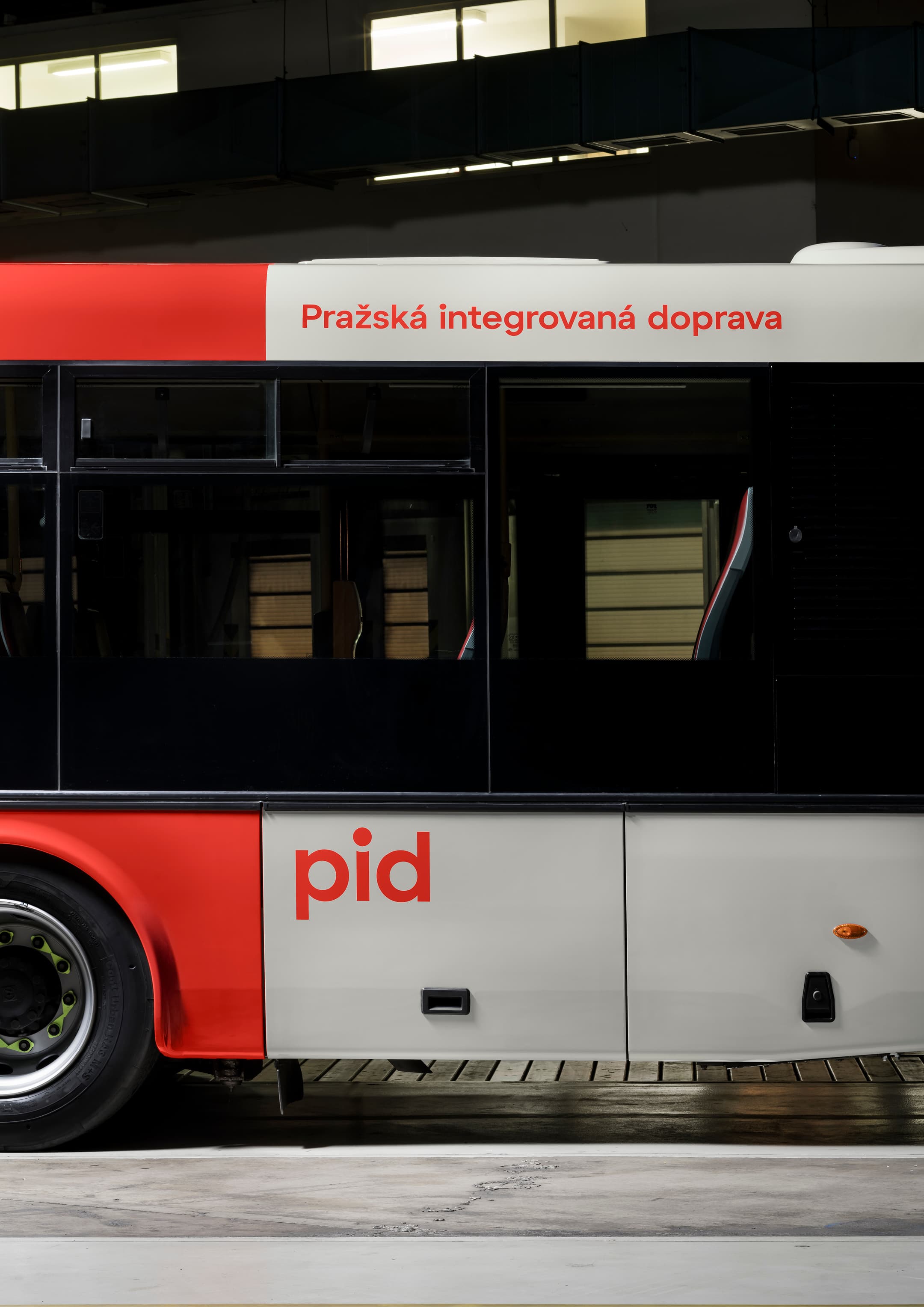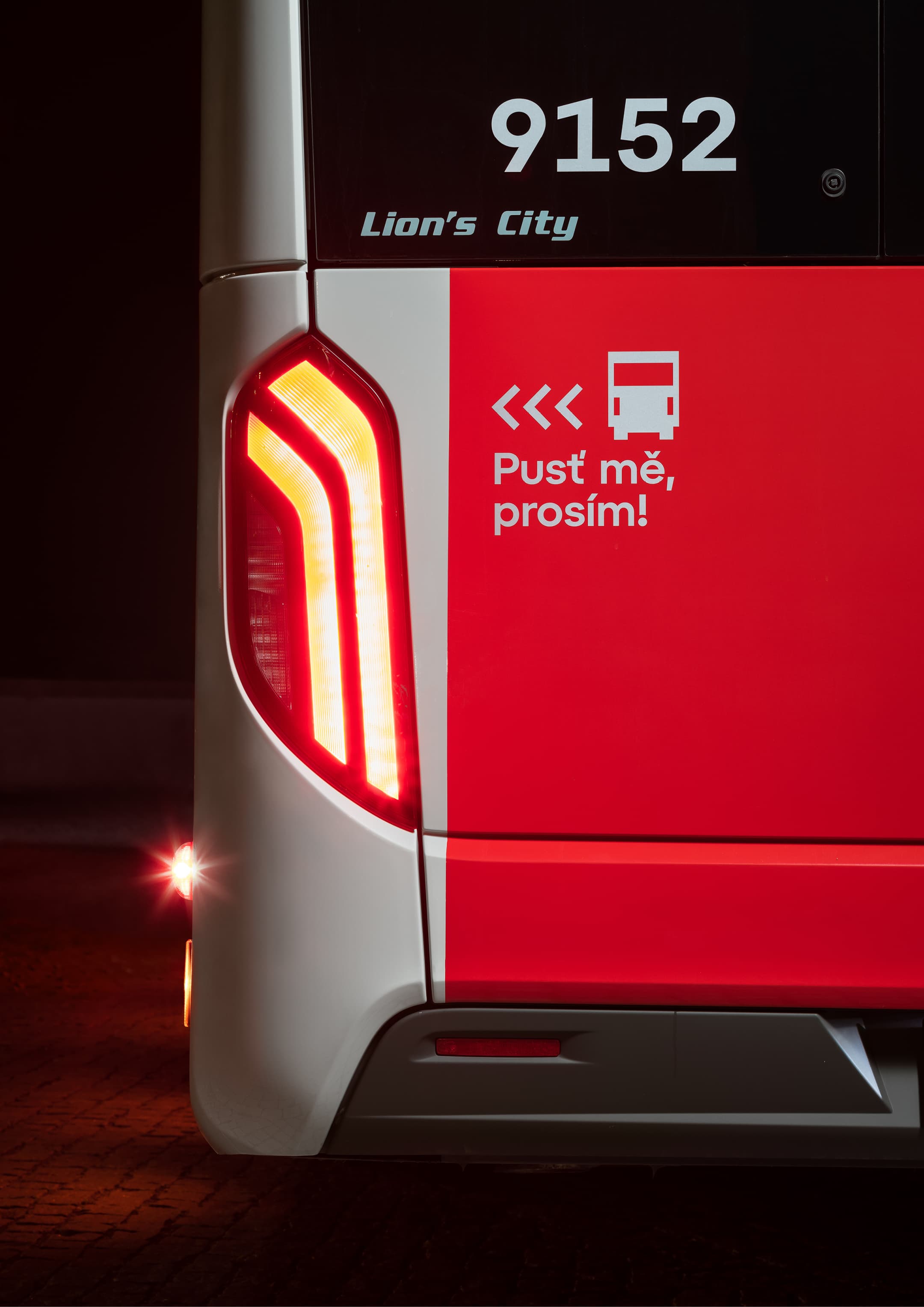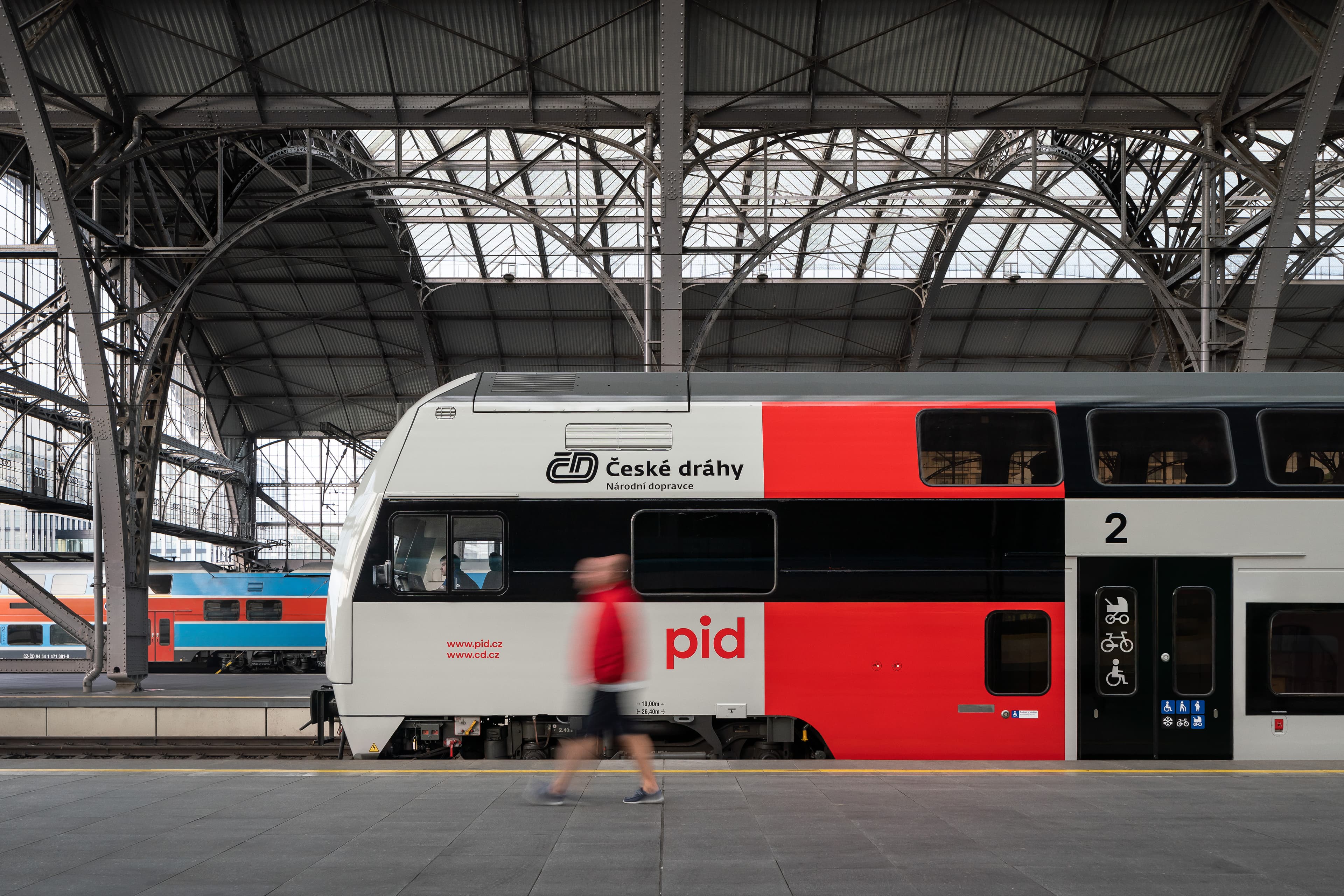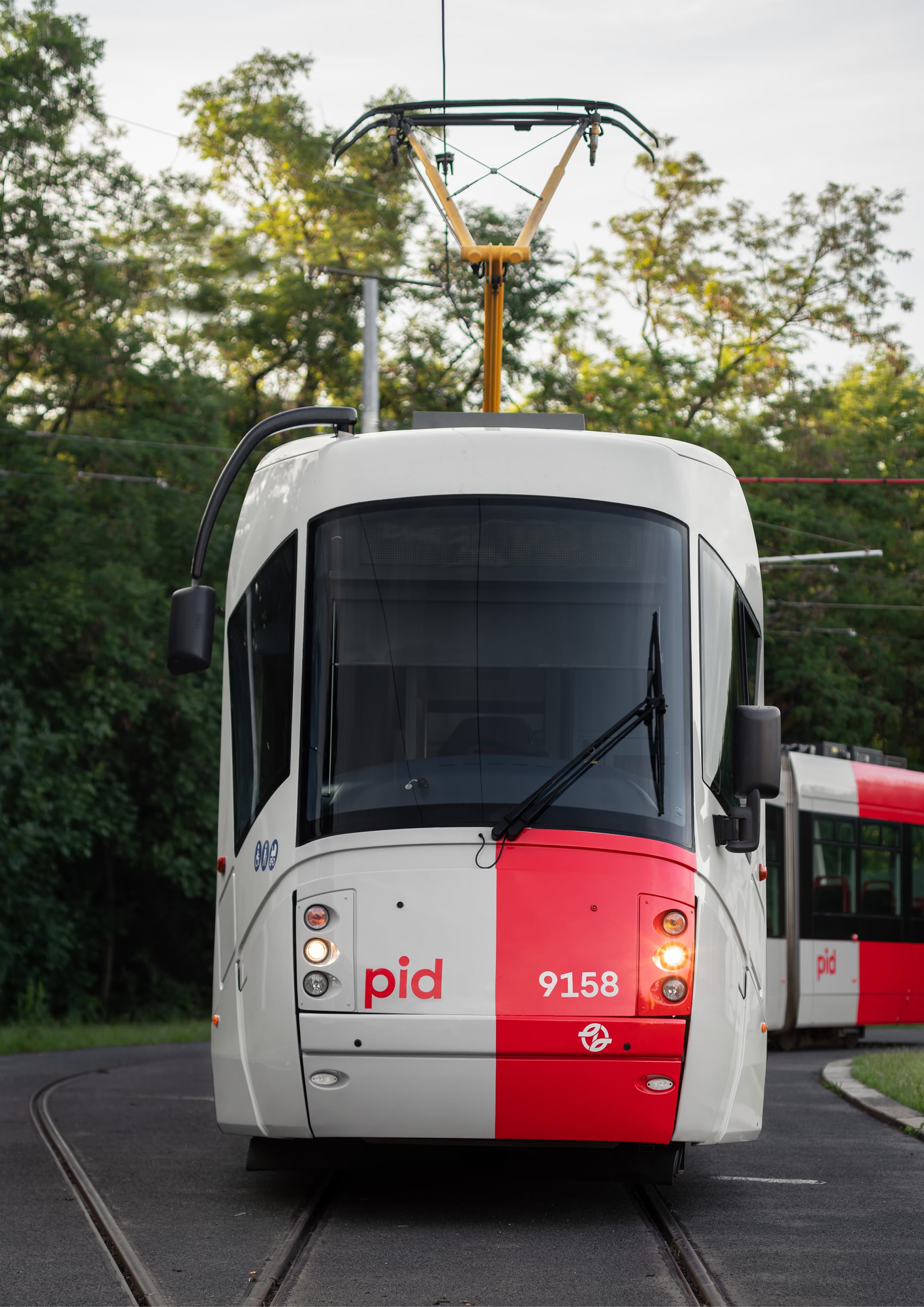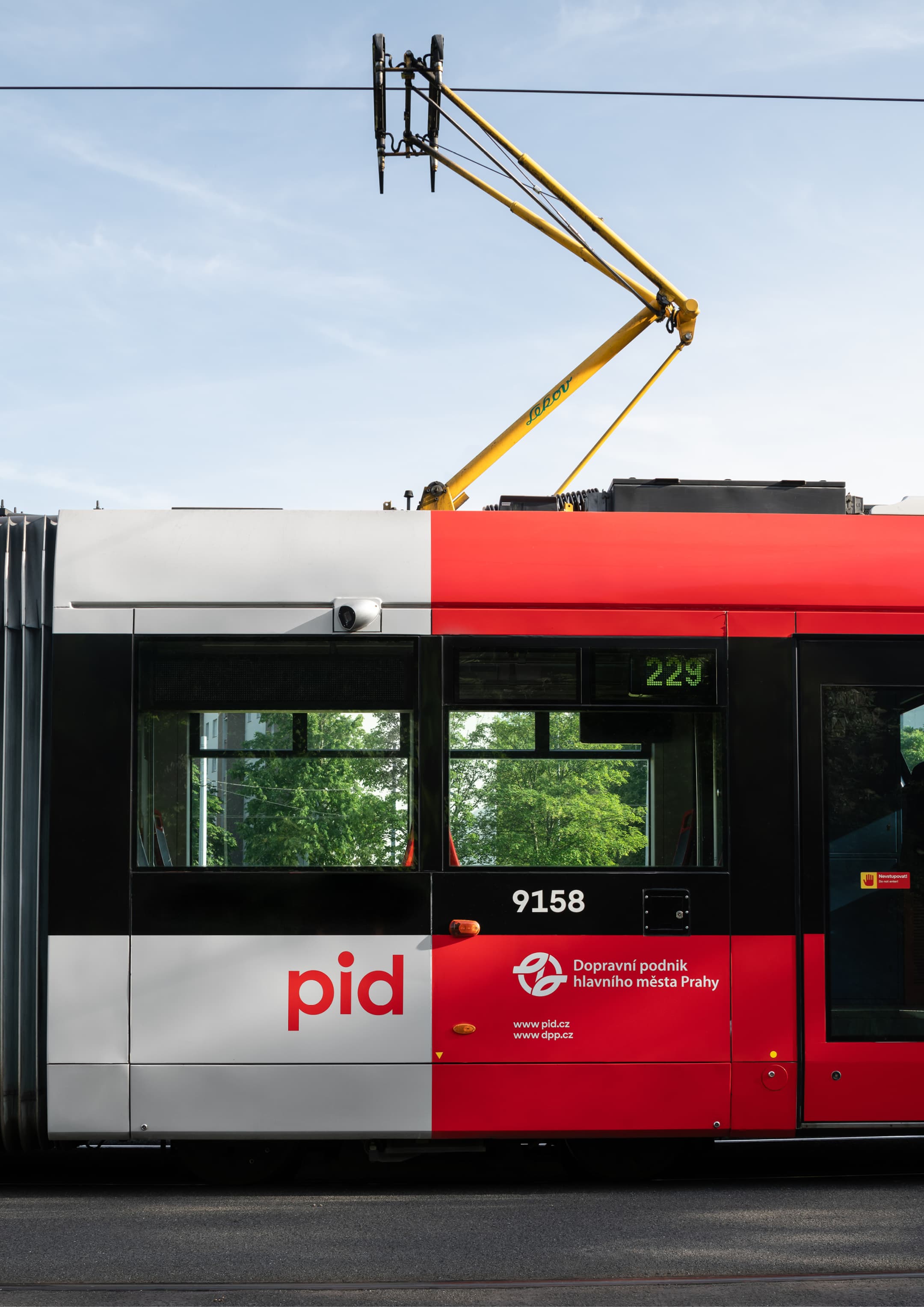
PID Grotesk
Prague Integrated Transport is the integrated public transport system serving the Czech capital and the Central Bohemian Region. The new design concept encompasses the logo, typeface, vehicle color scheme, pictogram set, and employee uniform design.
PID Grotesk was developed through subtle modifications of the Atyp Text typeface. Its most distinctive features include enlarged dot accents, which respond to the overall lowered diacritics and allow for tighter line spacing, and a numeral seven that replaces the conventional crossbar with a supporting vertical serif.